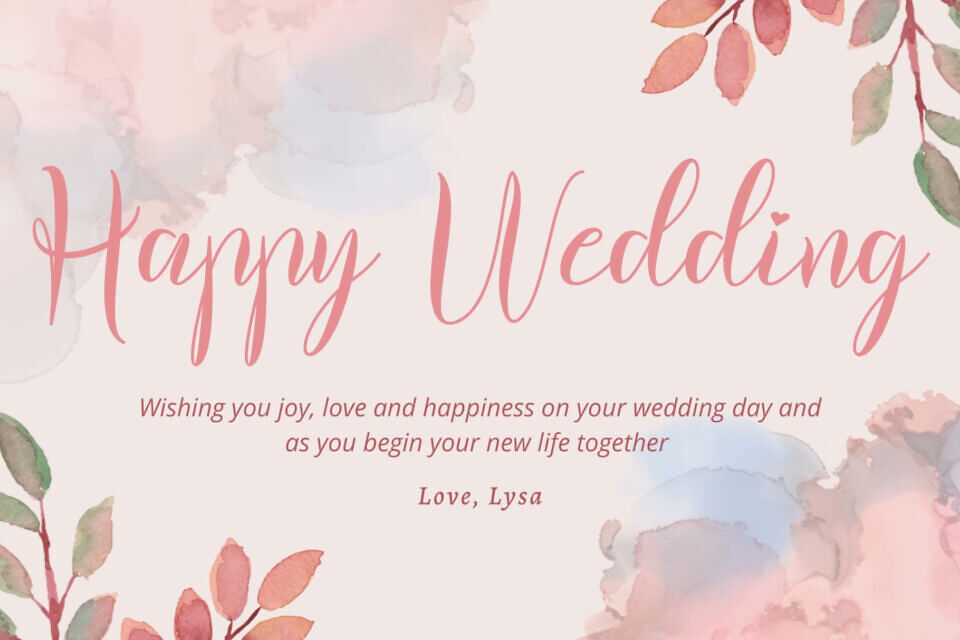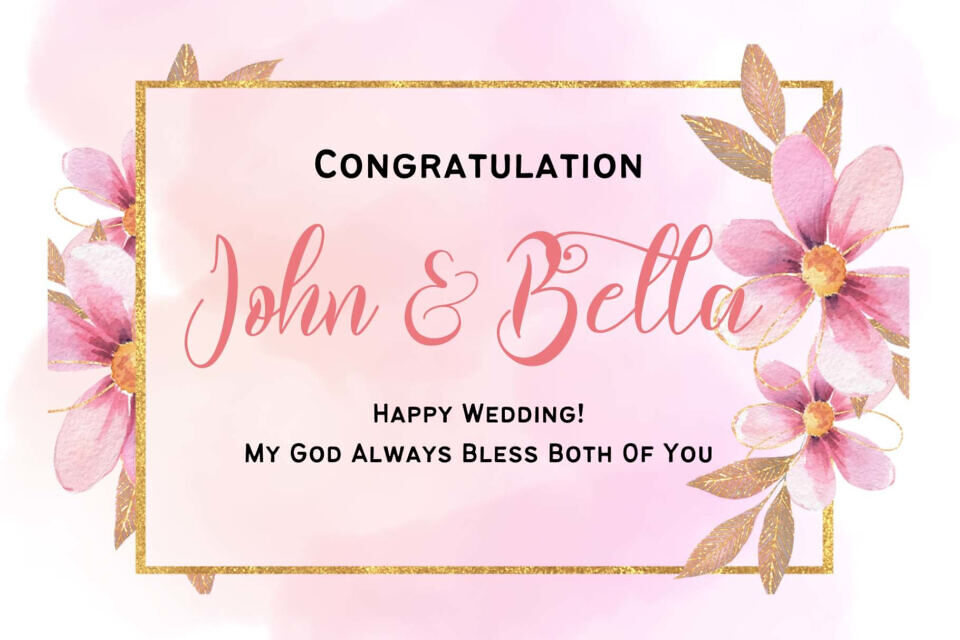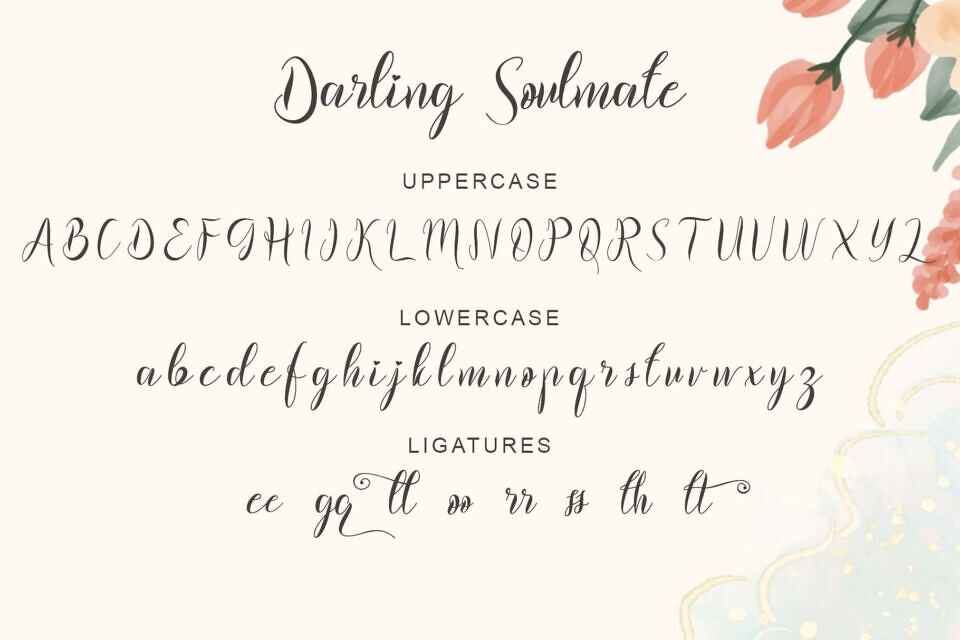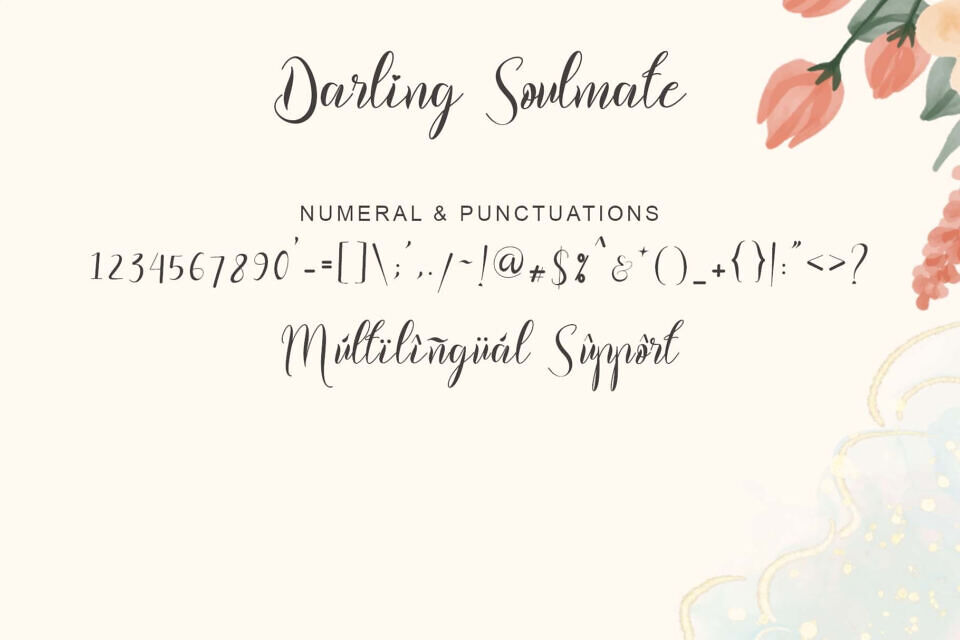
Darling Soulmate is a very beautiful and lovely handwritten font. This font is equipped with uppercase, lowercase, numerals, punctuation, ligatures, and multilingual support.
It is suitable for weddings, engagements, logos, banners, posters, prints, branding, stickers, Christmas and a variety of other projects.